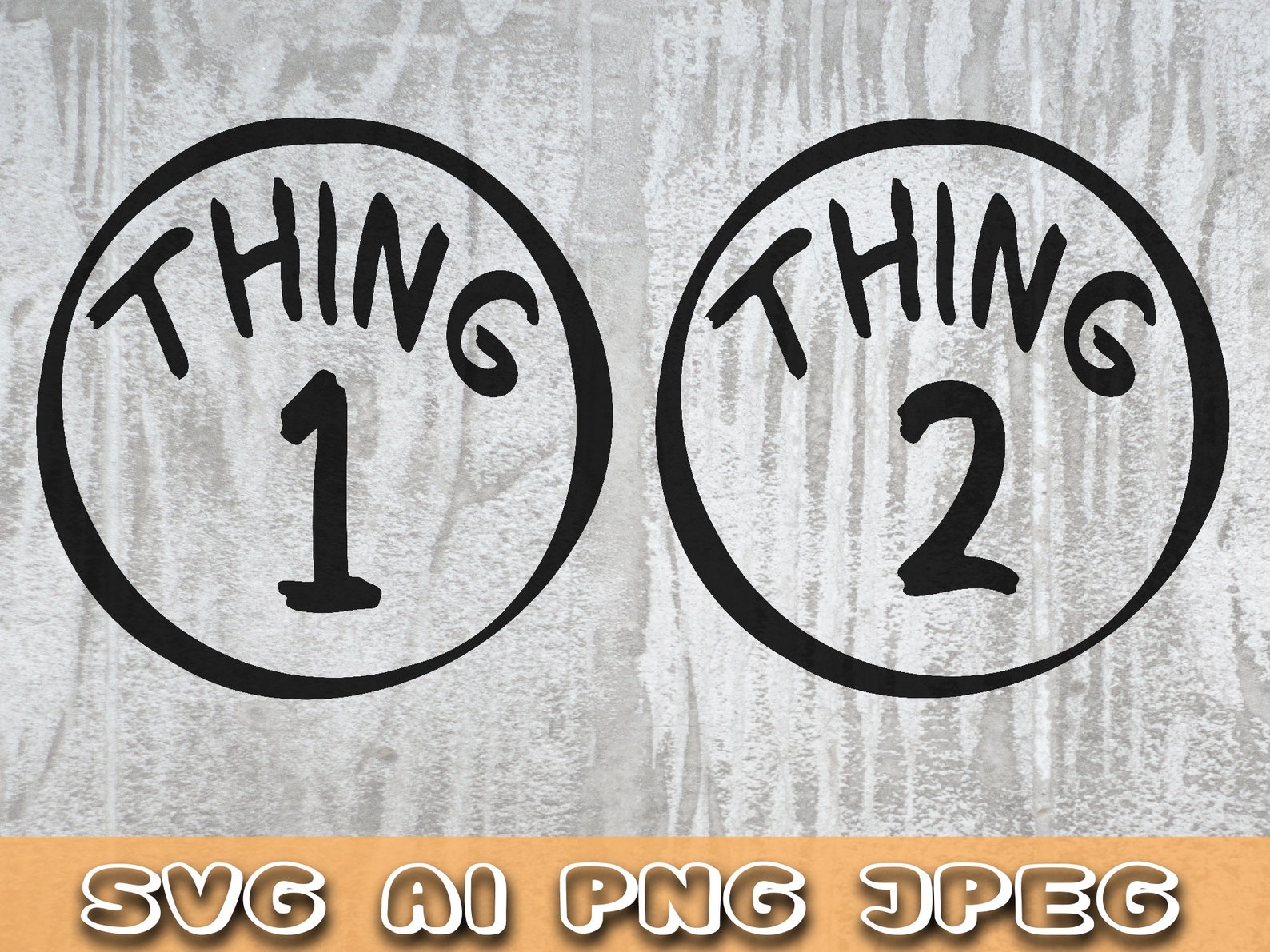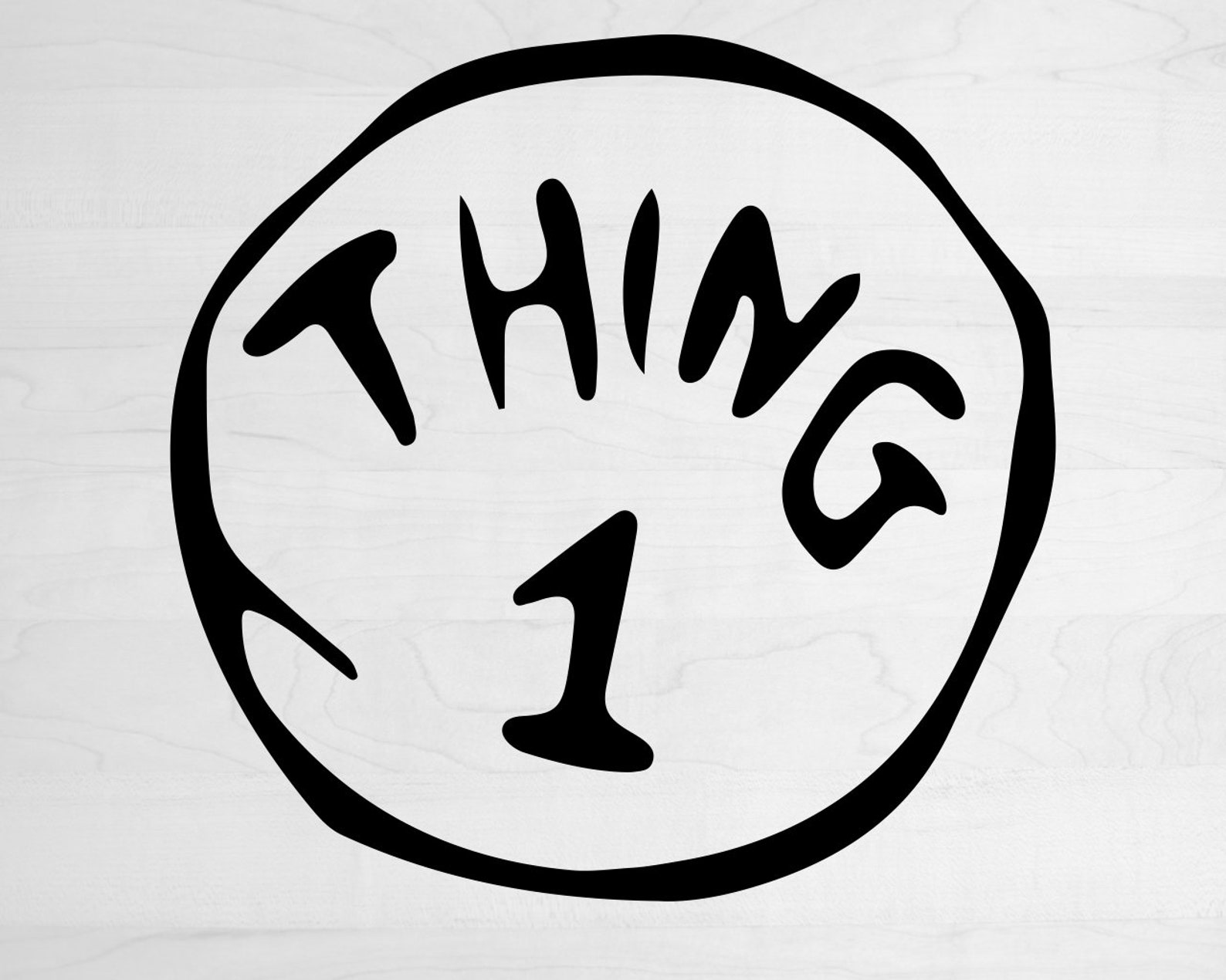
Thing 1 Thing 2 Font
Thing 1 Thing 2 Font - Archivo de fuentes de descarga gratuita. Búsqueda por orden alfabético, por estilo, por autor o por popularidad. Archive of freely downloadable fonts. Browse by alphabetical listing, by style, by author or by popularity. I can only guess it was a hand drawn font. Does anyone know of a close font that is used on thing 1 and thing 2 of dr.
Does anyone know of a close font that is used on thing 1 and thing 2 of dr. Archivo de fuentes de descarga gratuita. Búsqueda por orden alfabético, por estilo, por autor o por popularidad. Archive of freely downloadable fonts. I can only guess it was a hand drawn font. Browse by alphabetical listing, by style, by author or by popularity.
Browse by alphabetical listing, by style, by author or by popularity. Archive of freely downloadable fonts. Does anyone know of a close font that is used on thing 1 and thing 2 of dr. Archivo de fuentes de descarga gratuita. Búsqueda por orden alfabético, por estilo, por autor o por popularidad. I can only guess it was a hand drawn font.
Does anyone know of a close font that is used on thing 1 and thing 2 of dr. I can only guess it was a hand drawn font. Archivo de fuentes de descarga gratuita. Archive of freely downloadable fonts. Búsqueda por orden alfabético, por estilo, por autor o por popularidad.
Archivo de fuentes de descarga gratuita. Archive of freely downloadable fonts. Búsqueda por orden alfabético, por estilo, por autor o por popularidad. I can only guess it was a hand drawn font. Browse by alphabetical listing, by style, by author or by popularity.
Does anyone know of a close font that is used on thing 1 and thing 2 of dr. Archivo de fuentes de descarga gratuita. Archive of freely downloadable fonts. Browse by alphabetical listing, by style, by author or by popularity. Búsqueda por orden alfabético, por estilo, por autor o por popularidad.
Browse by alphabetical listing, by style, by author or by popularity. Archivo de fuentes de descarga gratuita. Búsqueda por orden alfabético, por estilo, por autor o por popularidad. I can only guess it was a hand drawn font. Archive of freely downloadable fonts.
Does anyone know of a close font that is used on thing 1 and thing 2 of dr. Archive of freely downloadable fonts. Browse by alphabetical listing, by style, by author or by popularity. Archivo de fuentes de descarga gratuita. I can only guess it was a hand drawn font.
Archivo de fuentes de descarga gratuita. Archive of freely downloadable fonts. I can only guess it was a hand drawn font. Does anyone know of a close font that is used on thing 1 and thing 2 of dr. Browse by alphabetical listing, by style, by author or by popularity.
Archivo de fuentes de descarga gratuita. Búsqueda por orden alfabético, por estilo, por autor o por popularidad. Archive of freely downloadable fonts. I can only guess it was a hand drawn font. Browse by alphabetical listing, by style, by author or by popularity.
Búsqueda por orden alfabético, por estilo, por autor o por popularidad. Archivo de fuentes de descarga gratuita. Browse by alphabetical listing, by style, by author or by popularity. I can only guess it was a hand drawn font. Does anyone know of a close font that is used on thing 1 and thing 2 of dr.
I can only guess it was a hand drawn font. Archivo de fuentes de descarga gratuita. Archive of freely downloadable fonts. Does anyone know of a close font that is used on thing 1 and thing 2 of dr. Búsqueda por orden alfabético, por estilo, por autor o por popularidad.
I can only guess it was a hand drawn font. Does anyone know of a close font that is used on thing 1 and thing 2 of dr. Archivo de fuentes de descarga gratuita. Búsqueda por orden alfabético, por estilo, por autor o por popularidad. Browse by alphabetical listing, by style, by author or by popularity.
Búsqueda por orden alfabético, por estilo, por autor o por popularidad. I can only guess it was a hand drawn font. Browse by alphabetical listing, by style, by author or by popularity. Does anyone know of a close font that is used on thing 1 and thing 2 of dr.